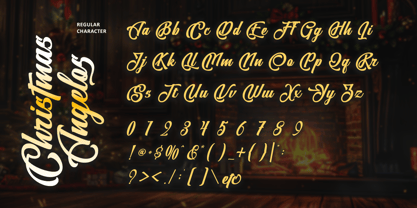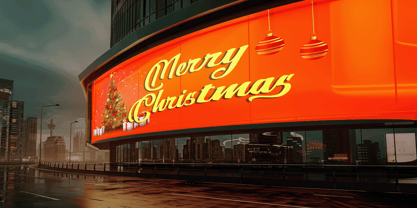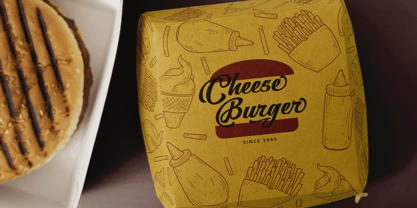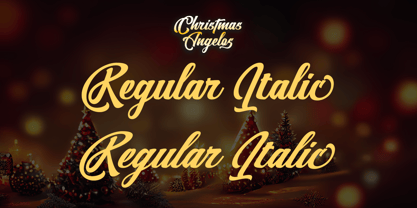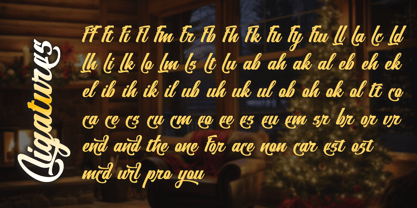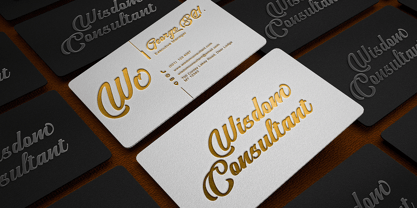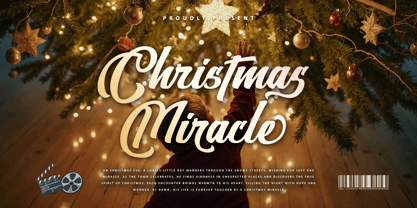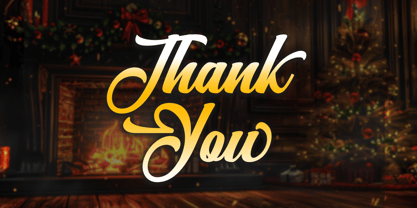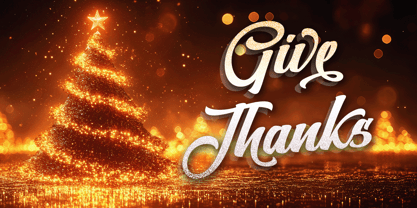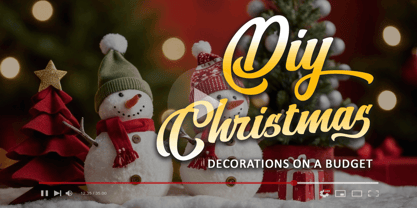
Christmas Angelos
by Letterara
The Christmas Angelos Font Family was designed by Thomas Aradea and published by Letterara. Christmas Angelos contains 2 styles and family package options. More about this family
Introducing Christmas Angelos, a bold script font that glows with festive elegance and timeless charm. Designed with flowing strokes and a touch of modern flair, this font captures the cozy spirit of Christmas while remaining versatile for countless creative uses. Perfect for logos, posters, packaging, and seasonal branding, Christmas Angelos adds warmth and sophistication to any design. With full PUA encoding, you can effortlessly explore its stylish glyphs, alternates, and swashes—bringing your projects to life with the magic of Christmas.
Designers: Thomas Aradea
Foundry: Letterara